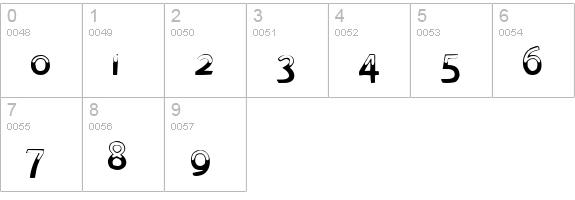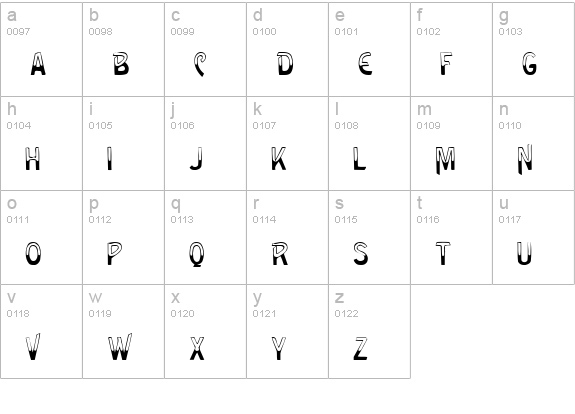
Shadow Normal is the standard, neutral variant in the Shadow typeface family \xE2\x80\x94 well suited to general body text, paragraphs, and standard typographic work.
Introducing Shadow Normal Font, a versatile and captivating typeface that effortlessly combines elegance with a touch of mystery. This unique font is perfect for adding a dramatic flair to your designs, whether it be for logos, headlines, posters, or any other creative project. Shadow Normal Font features an alluring shadow effect that adds depth and dimension to each letter, creating a visually striking and impactful appearance. Its carefully crafted curves and sharp edges give it a modern yet timeless appeal, making it suitable for a wide range of design styles. What sets Shadow Normal Font apart is its versatility and adaptability. It seamlessly blends with various design elements, enhancing the overall composition without overpowering it. Whether you're aiming for a bold and edgy look or a more refined and sophisticated aesthetic, this font effortlessly adapts to your vision. But what makes Shadow Normal Font truly exceptional is that it is available for free download at FontsMarket.com. Yes, you read that right - this remarkable font is freely accessible to all designers, enthusiasts, and creatives alike. It's an opportunity to elevate your projects without breaking the bank, allowing you to explore endless possibilities and unleash your creativity. So why wait? Discover the magic of Shadow Normal Font today and let it transform your designs into captivating works of art. Download it for free at FontsMarket.com and embark on a journey of limitless creativity.